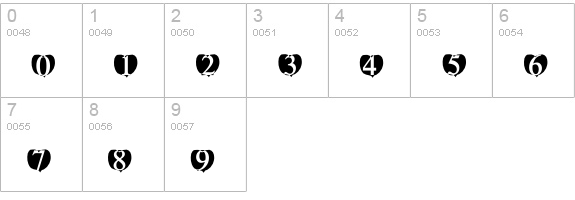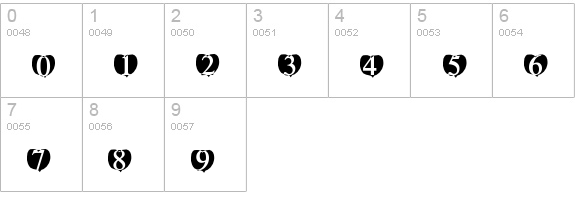
Amnon-Love Font Details
Amnon-Love font encapsulates a sense of elegance and charm, perfect for adding a touch of sophistication to any project. This exquisite font features delicate swirls and graceful curves that exude a sense of romance and grace. Amnon-Love font is versatile and can be used for a variety of design purposes, from wedding invitations to branding and beyond. What truly sets Amnon-Love font apart is that it is available for free download at FontsMarket.com. This means that you can easily access this stunning font and incorporate it into your designs without any cost. Whether you are a seasoned designer or a creative enthusiast, Amnon-Love font offers a beautiful and cost-effective solution for your typography needs. Let the timeless beauty of Amnon-Love font elevate your designs and captivate your audience.